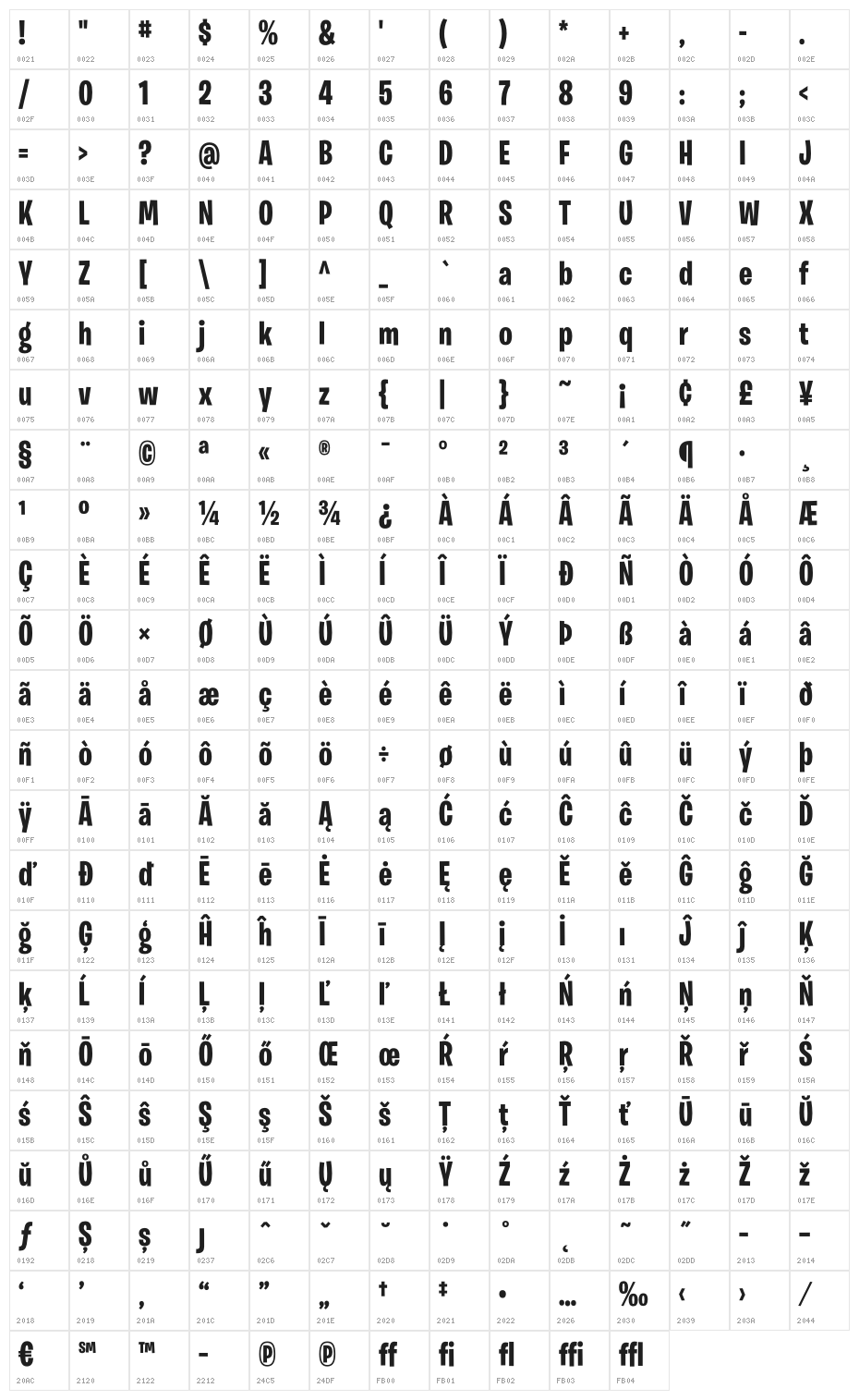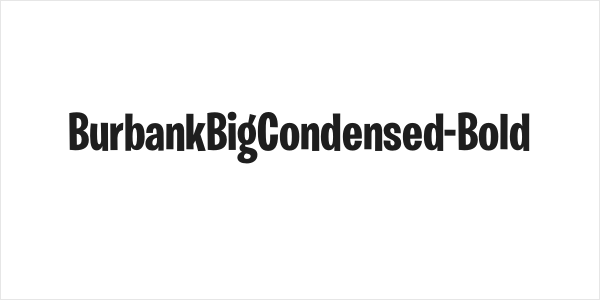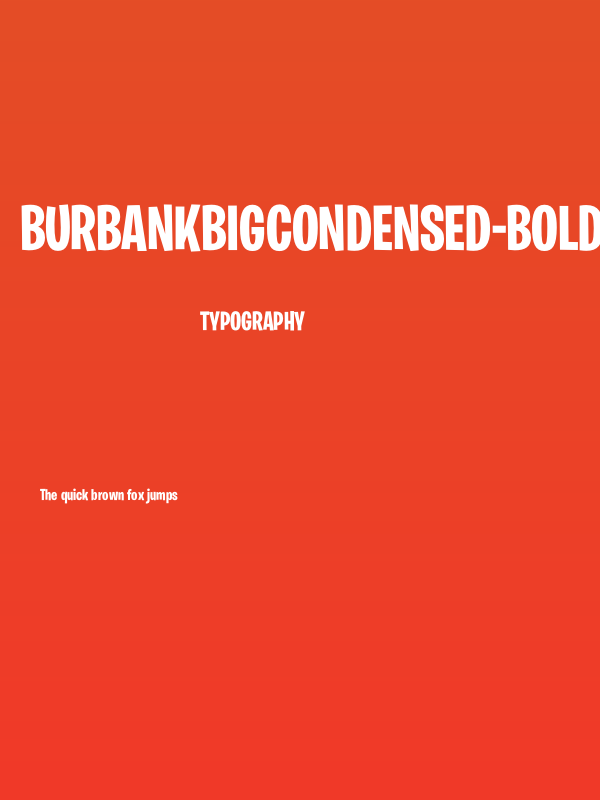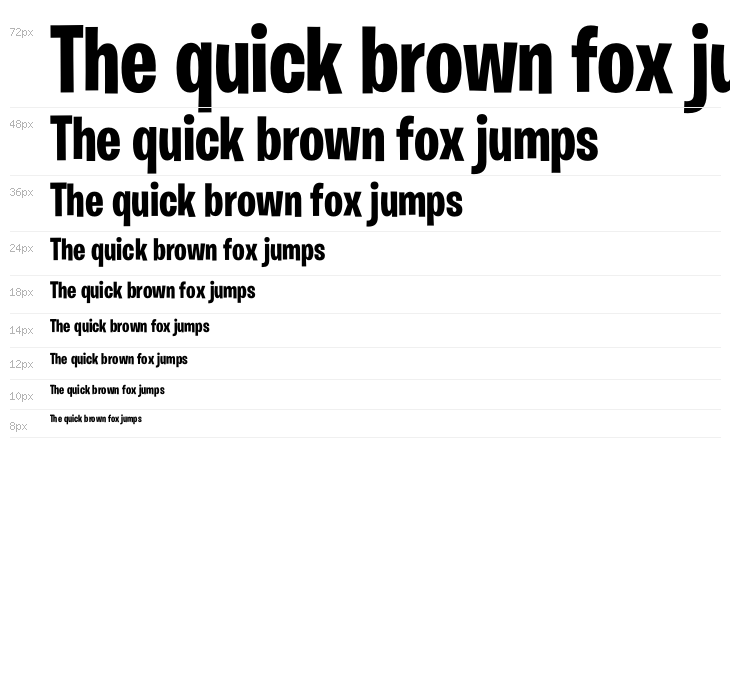
BurbankBigCondensed-Bold Font
BurbankBigCondensed-Bold Description
This font features a bold and condensed style, characterized by thick, uniform strokes that create a strong visual impact. The uppercase and lowercase letters maintain a consistent height, contributing to a cohesive and compact appearance. The numbers and special characters are designed to match the boldness of the letters, ensuring readability and emphasis. The overall design is modern and assertive, making it suitable for attention-grabbing headlines and titles. Its condensed nature allows for efficient use of space without sacrificing legibility.
| Proposed Projects | Ideal for posters, banners, advertising, and any project requiring bold, attention-grabbing text. |